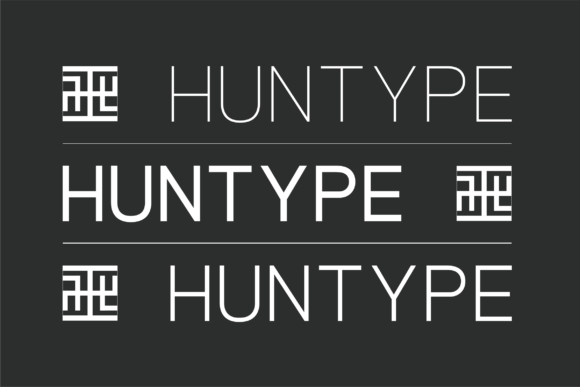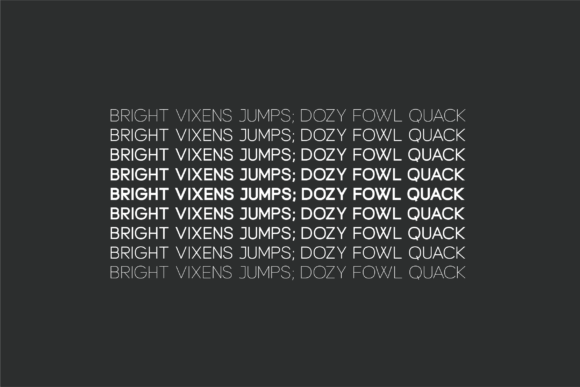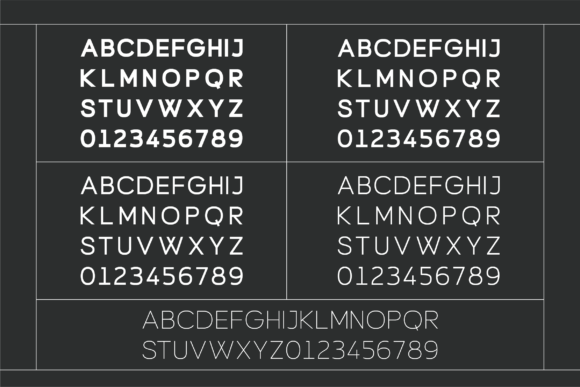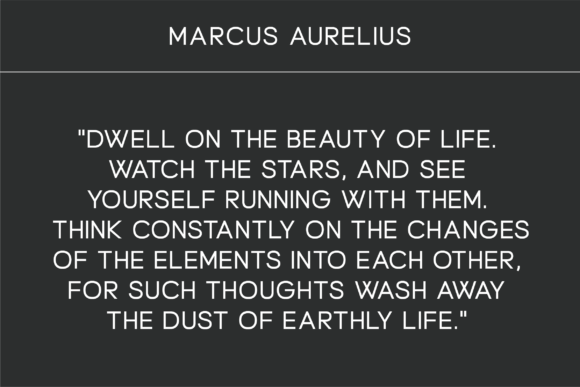
Introducing Glistening: The Ultimate Font for Elegance and Versatility
In the world of typography, a font can make all the difference in the success of a design project. With the right font, you can convey your message with clarity, style, and sophistication. This is where Glistening comes in – a meticulously crafted font family that epitomizes elegance, modernity, and versatility. In this article, we’ll explore the features and benefits of Glistening, and why it’s the perfect choice for designers and content creators.
A Font Family Like No Other
Glistening is not just a font, but a font family that offers a wide range of creative possibilities. With five distinct weights – thin, light, regular, bold, and black – you can use Glistening for a variety of design projects, from subtle and delicate to bold and impactful. Whether you’re designing a logo, brochure, website, or social media graphics, Glistening has got you covered.
Elegance and Sophistication
At the heart of Glistening is a seamless blend of sophistication and contemporary style. The font’s sleek lines, precise curves, and carefully crafted letterforms exude elegance and refinement. Glistening’s elegant design makes it perfect for projects that require a touch of luxury, sophistication, and high-end quality. Imagine using Glistening for a fashion brand’s logo, a wedding invitation, or a high-end product catalog – the results are sure to be stunning.
One of the standout features of Glistening is its versatility. With five weights to choose from, you can use Glistening for a wide range of design projects. Need a subtle and delicate font for a blog or website? Glistening’s thin and light weights are perfect for the job. Want to make a bold statement with a poster or social media graphic? Glistening’s bold and black weights are sure to grab attention. The regular weight is perfect for body text, while the bold weight adds a touch of emphasis and style.
Why Choose Glistening?
So why choose Glistening over other fonts? Here are just a few reasons:
- Elegance and sophistication: Glistening’s unique design exudes elegance and refinement, making it perfect for high-end projects.
- Versatility: With five distinct weights, Glistening can be used for a wide range of design projects.
- Modernity: Glistening’s sleek lines and precise curves make it a modern and contemporary font.
- Easy to read: Glistening’s carefully crafted letterforms ensure that your text is easy to read, even at small sizes.
Tips for Using Glistening
Here are a few tips for using Glistening in your design projects:
- Mix and match weights: Experiment with different weights to create visual interest and hierarchy in your designs.
- Use for headlines and body text: Glistening’s versatility makes it perfect for both headlines and body text.
- Pair with other fonts: Glistening pairs well with other fonts, so don’t be afraid to experiment with different combinations.
In conclusion, Glistening is a game-changing font family that offers elegance, sophistication, and versatility. With its five distinct weights, Glistening is perfect for a wide range of design projects, from subtle and delicate to bold and impactful. Whether you’re a designer, content creator, or crafty DIY enthusiast, Glistening is sure to become your go-to font. So why wait? Download Glistening today and take your designs to the next level!